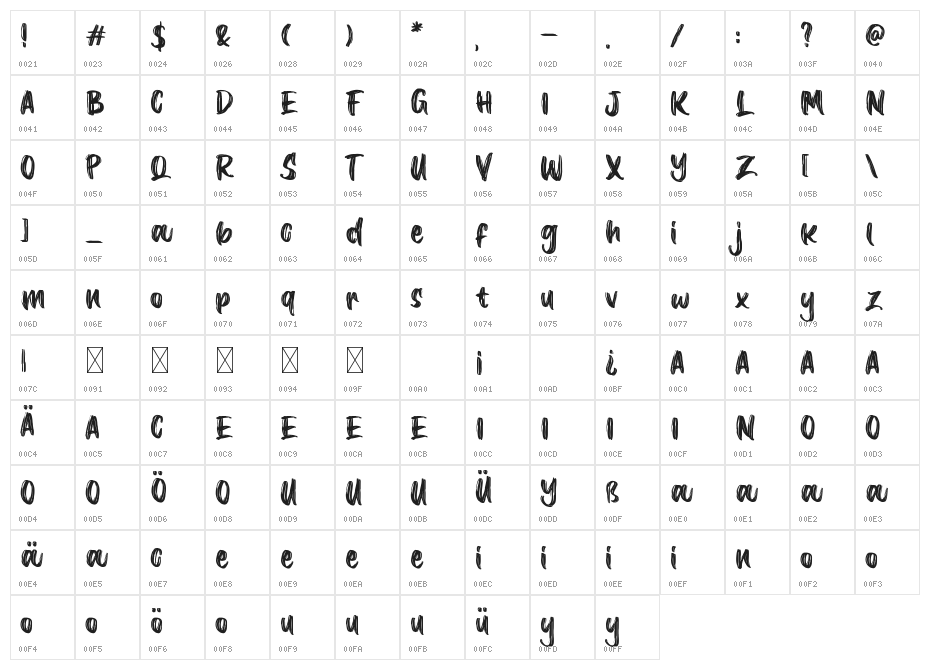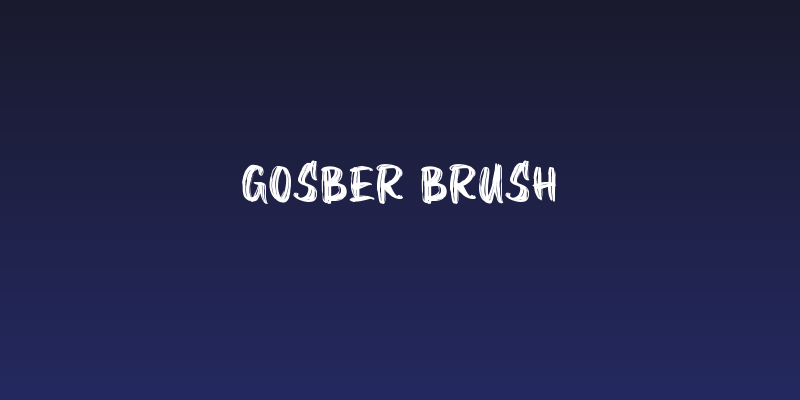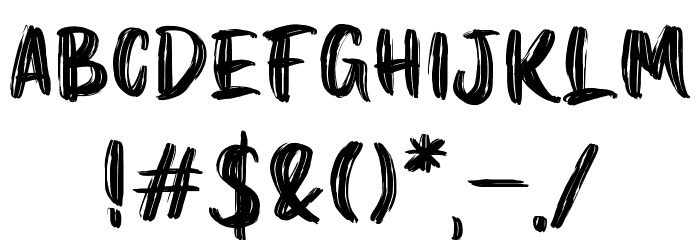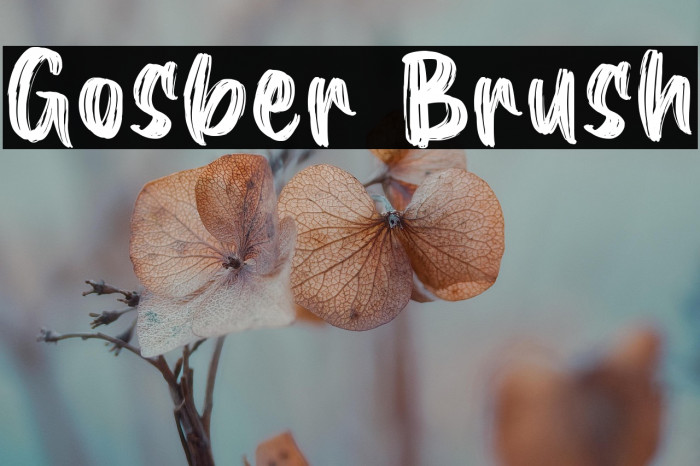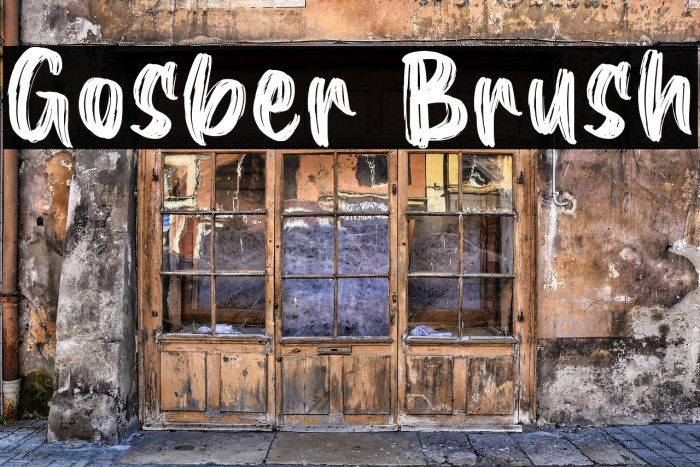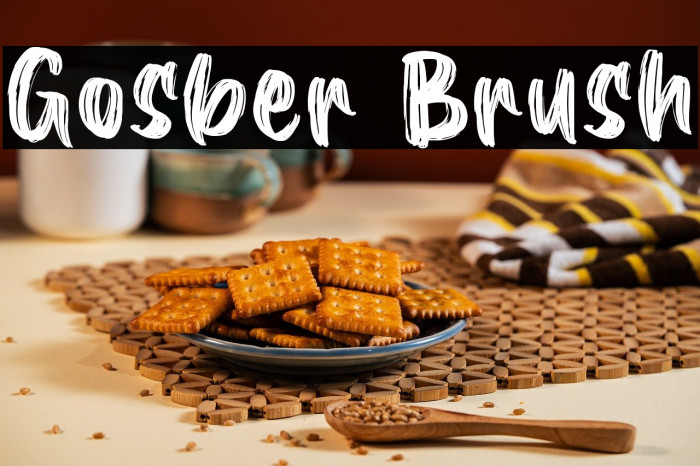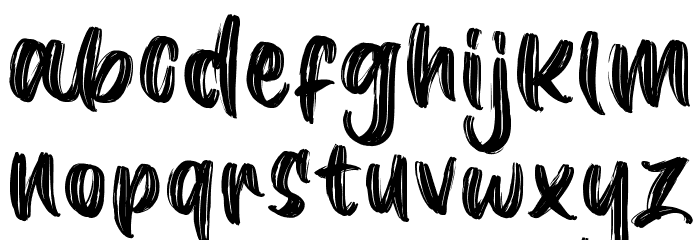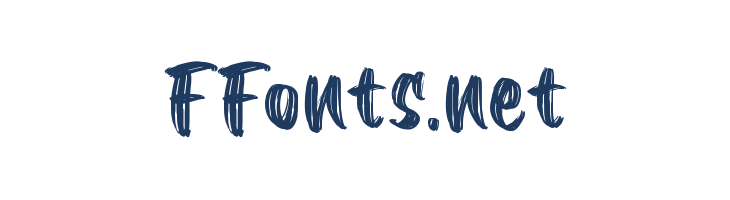
Gosber Brush Font
Gosber Brush Description
This font features a bold, expressive brush style that conveys a sense of energy and creativity. The strokes are thick and dynamic, with a hand-painted appearance that adds a personal touch to any design. The letters are slightly irregular, enhancing the organic feel of the font. This style is perfect for projects that require a bold statement or a creative flair. The uppercase and lowercase letters maintain a consistent style, while the numbers and special characters complement the overall aesthetic. The font's unique character makes it suitable for artistic and eye-catching designs.
| Proposed Projects | Ideal for posters, branding, social media graphics, and creative projects requiring a bold statement. |